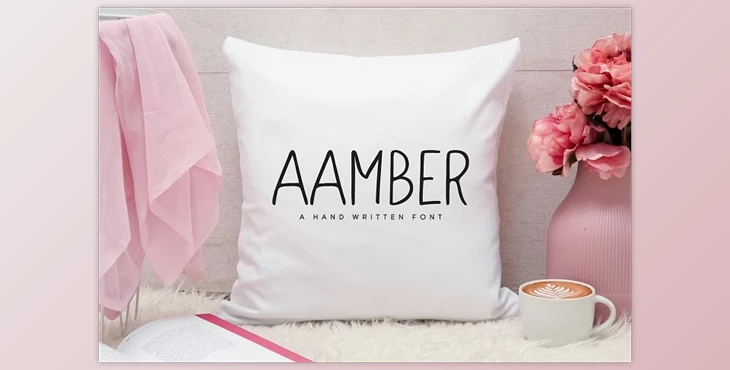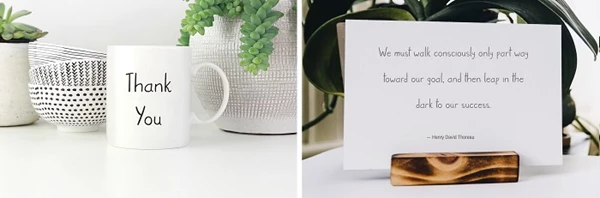
The Aamber Sans Serif Font is a modern and elegant typeface crafted to enhance any design project. With complete glyph support for multilingual use, it is versatile for various applications including presentations, branding, posters, magazines, websites, and more.
Ideal for creative designs, Aamber Font elevates any project with its sophistication and charm.